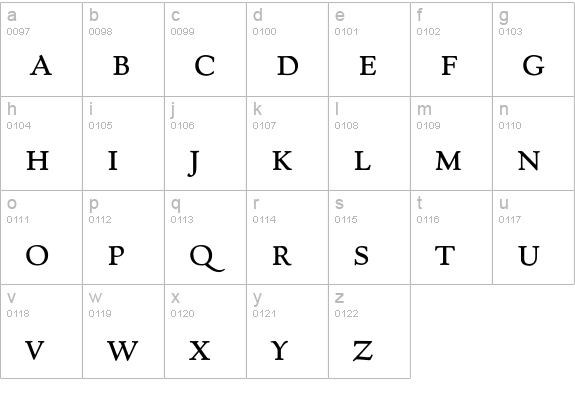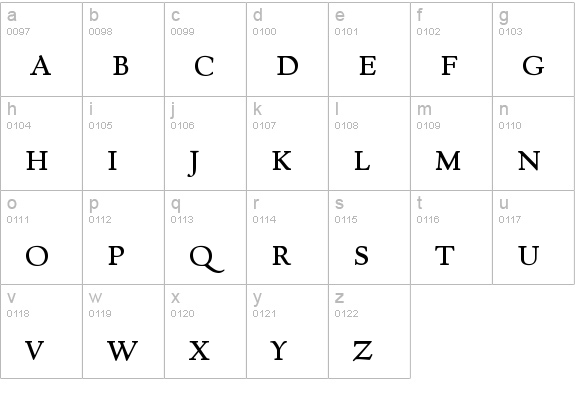
Village-RomanSmallcaps Font Details
Village-RomanSmallcaps is a stunning font that exudes a sense of rustic charm and timeless elegance. It is perfect for adding a touch of sophistication to any design project, whether it be a logo, branding materials, or even a wedding invitation. The smallcaps style adds a unique twist to the classic Roman font, making it stand out from the crowd. Each letter is meticulously crafted with intricate details and clean lines, resulting in a polished and refined look. What's even better is that Village-RomanSmallcaps is completely free to download at FontsMarket.com. This means that you can enhance your designs without breaking the bank. Whether you're a professional designer or a DIY enthusiast, this font is a valuable addition to your collection. With its versatility and timeless appeal, Village-RomanSmallcaps is sure to make a lasting impression on anyone who encounters it. So why wait? Head over to FontsMarket.com now and download this incredible font for free. Elevate your designs and unleash your creativity with Village-RomanSmallcaps.